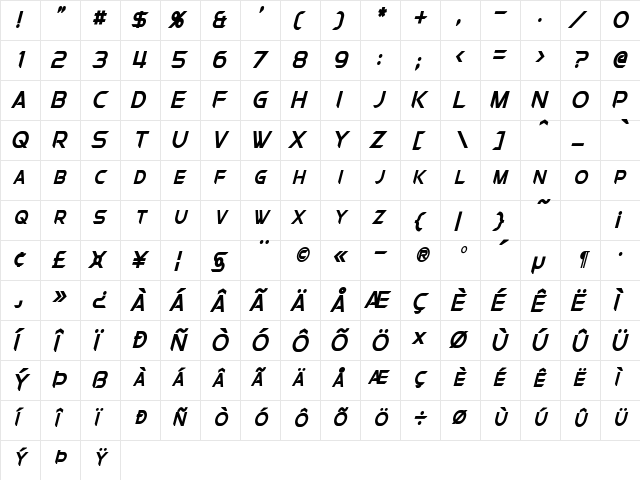
Chromia Supercap Condensed Bold Italic Font Preview
| Foundry | Pixel Sagas |
| Designer | Neale Davidson |
Design Context for Chromia Supercap Condensed Typeface
Chromia Supercap Condensed offers clean, dependable letterforms without strong stylistic allegiance, making it a practical choice for designers who need flexibility. The slanted form adds forward momentum and visual energy. The heavy weight commands attention and anchors typographic hierarchies. Its narrow stance lets it pack a punch even in space-constrained designs.
Pro Tip: Use Chromia Supercap Condensed for emphasis, pull quotes, and subheadings where its slanted energy can add rhythm to the layout.